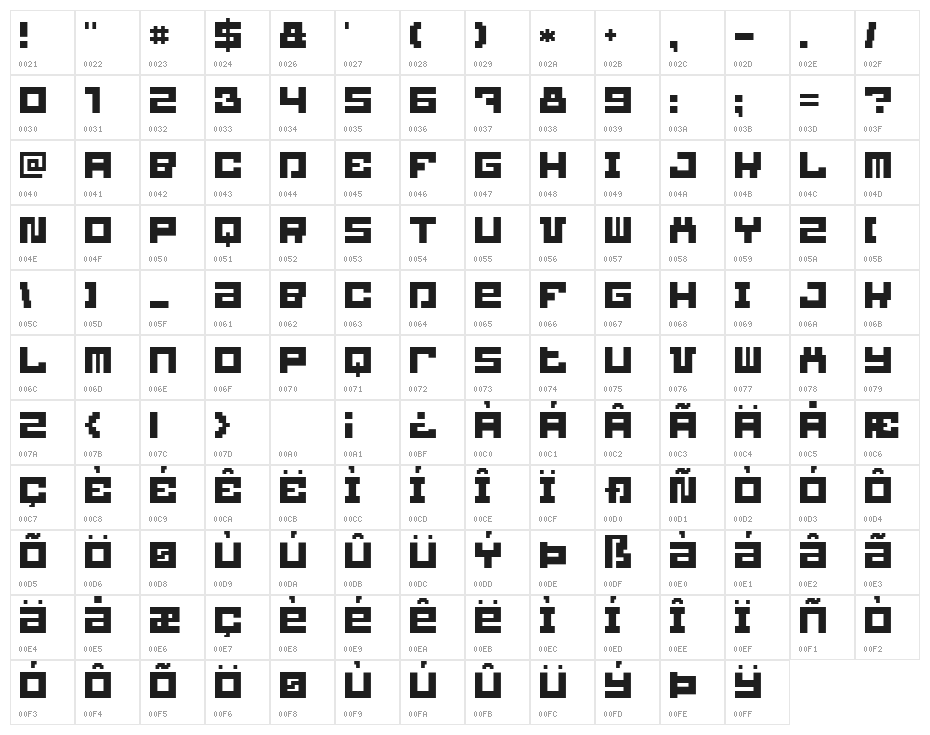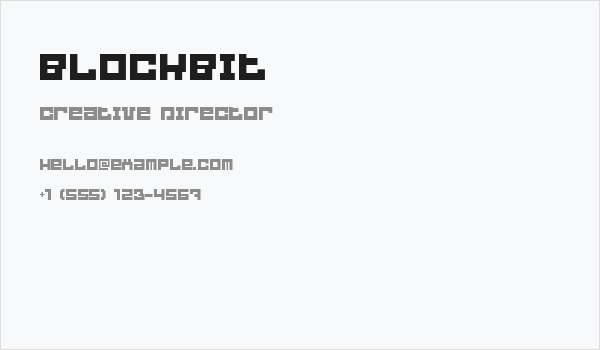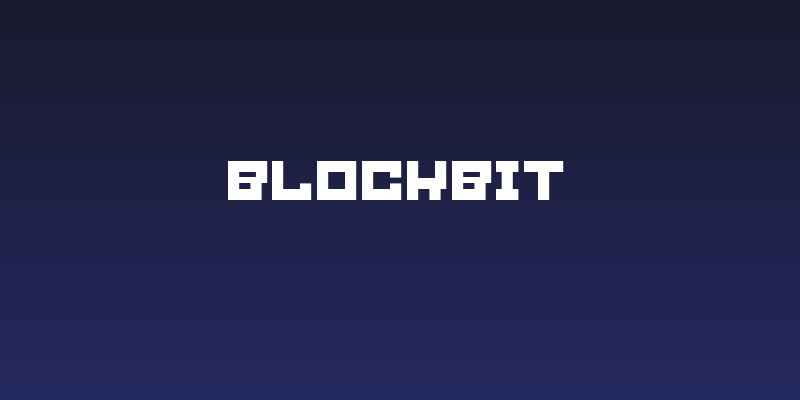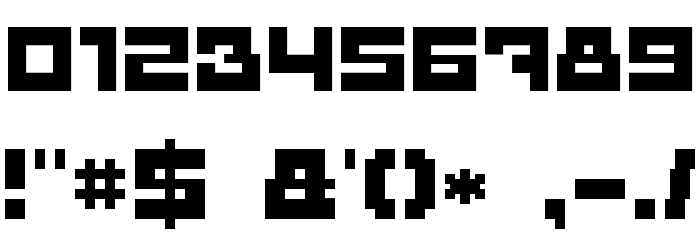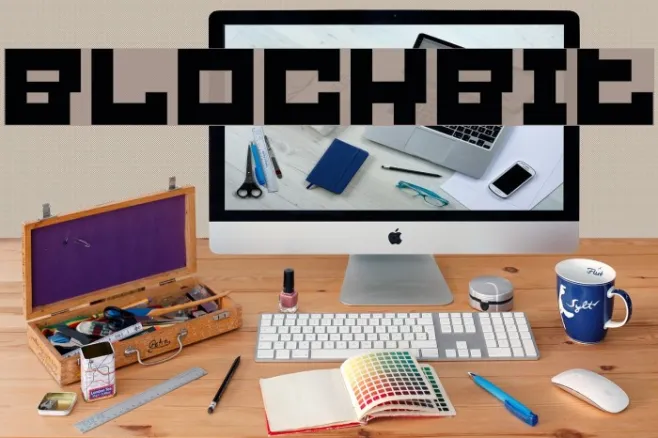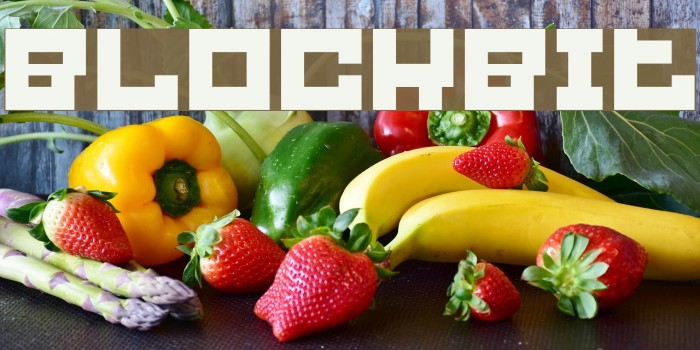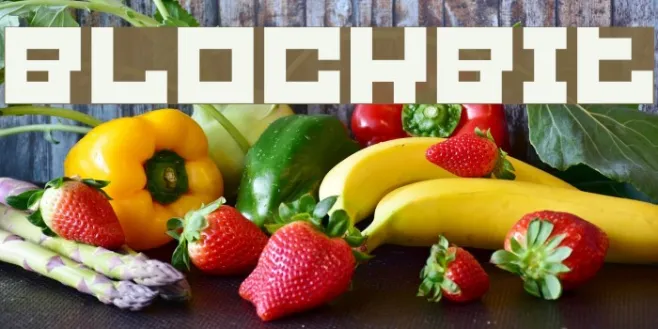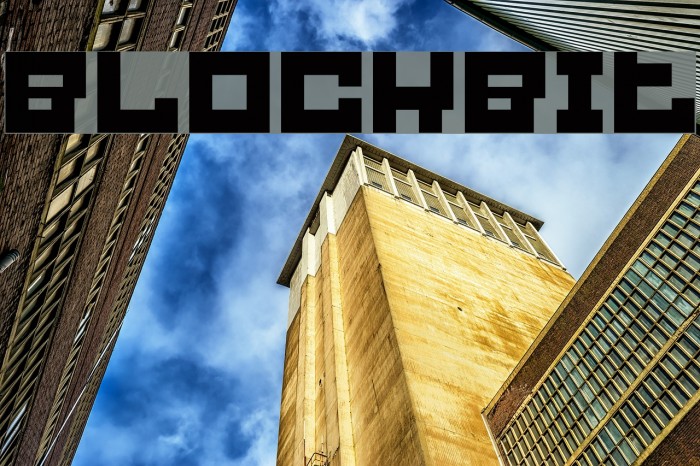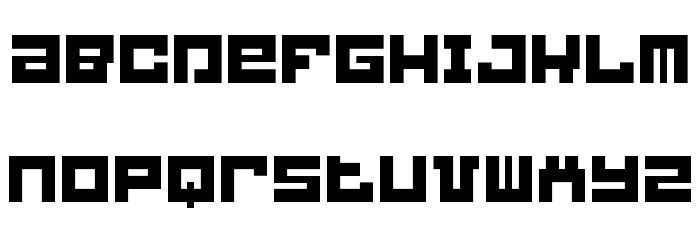
BlockBit Font
BlockBit Description
This font features a bold, geometric design with a distinctly digital aesthetic. The characters are constructed with blocky, pixel-like shapes, giving it a retro, arcade-inspired feel. The uppercase and lowercase letters maintain a consistent height, emphasizing uniformity and balance. Numbers and special characters follow the same design principles, ensuring a cohesive look across all glyphs. The font's strong, angular lines and absence of curves contribute to its modern, tech-oriented style, making it ideal for projects that require a futuristic or digital theme.
| Proposed Projects | Ideal for video game graphics, tech-themed posters, digital art projects, and retro-style branding. |